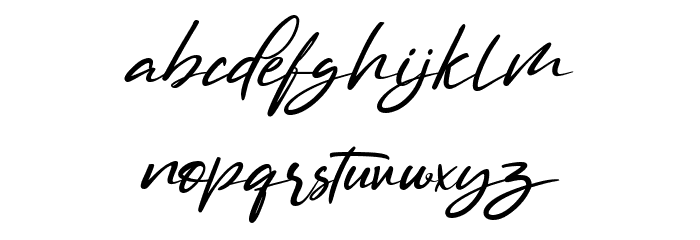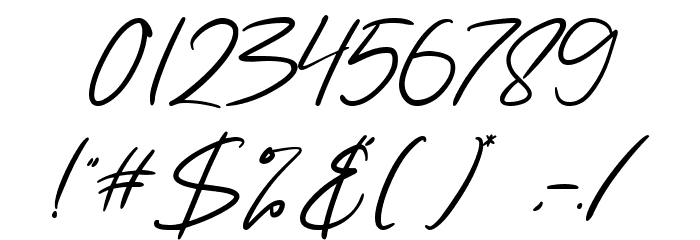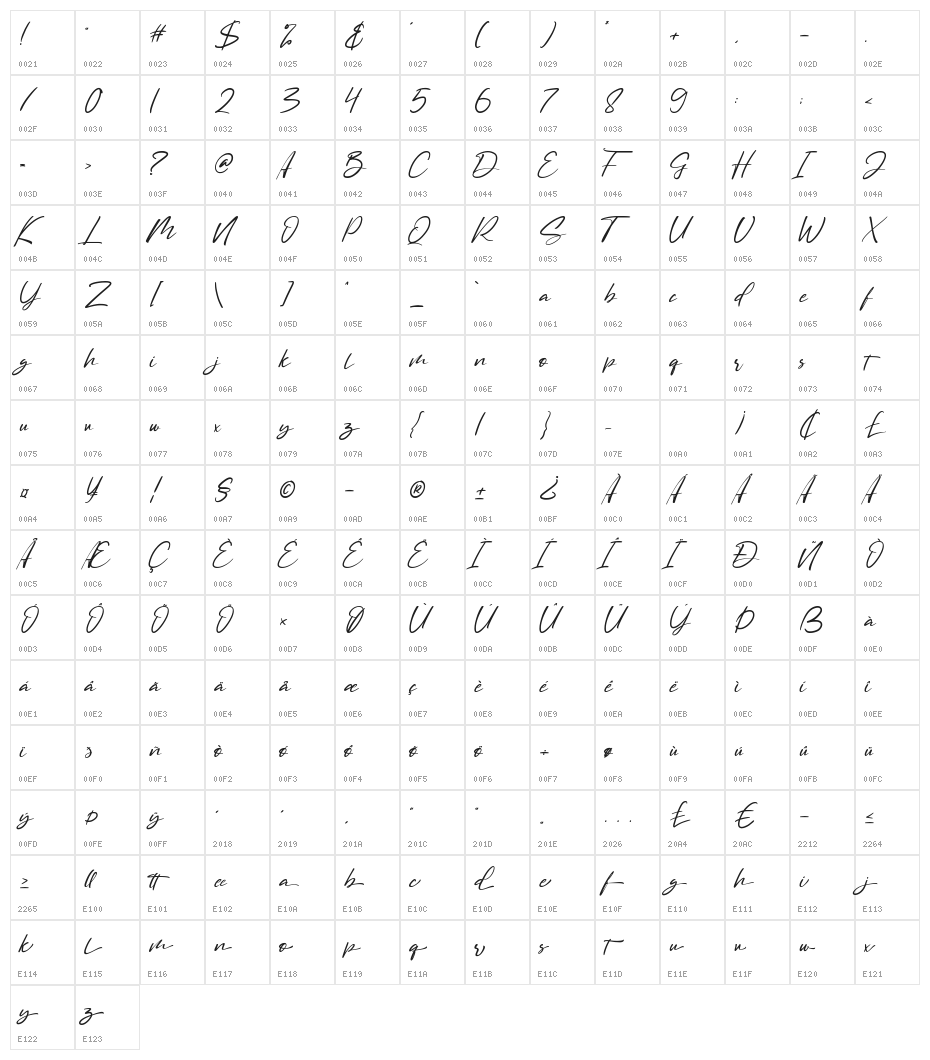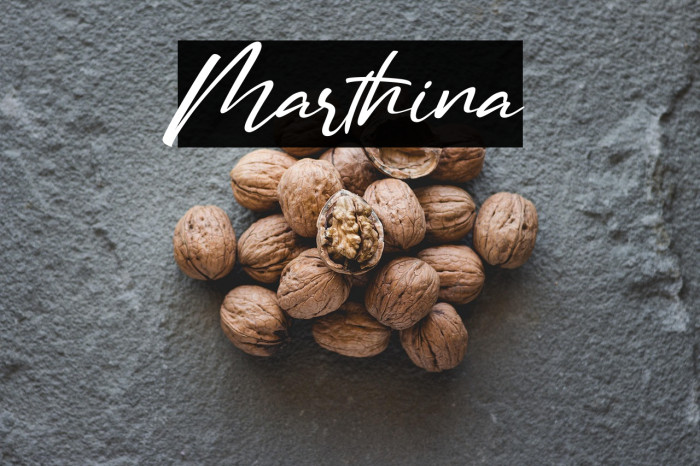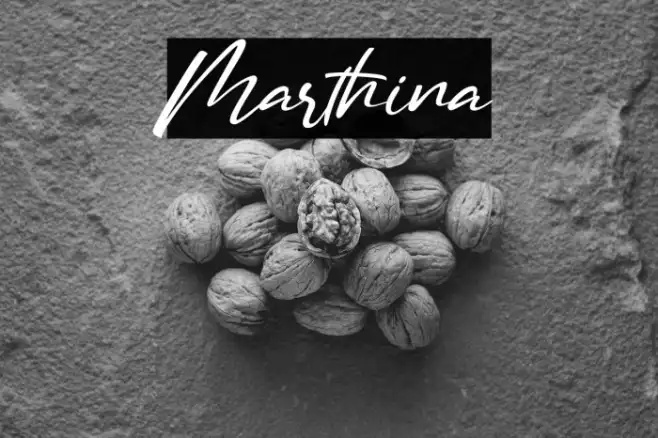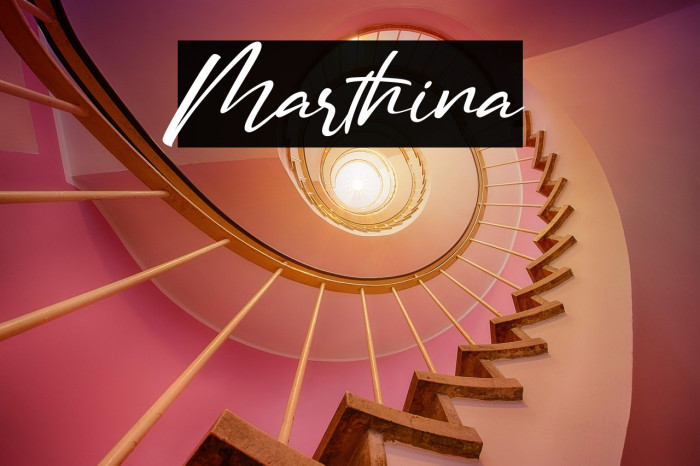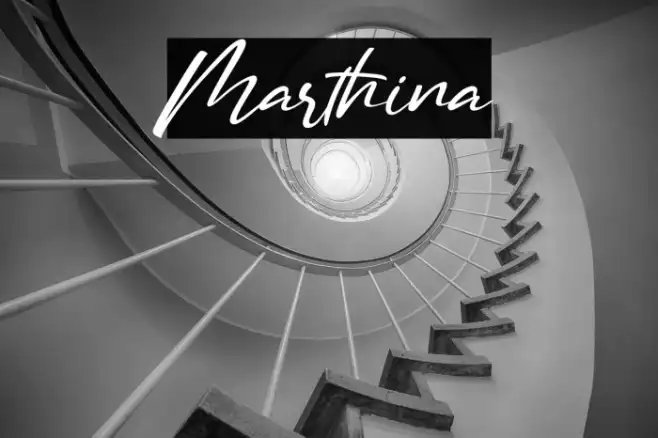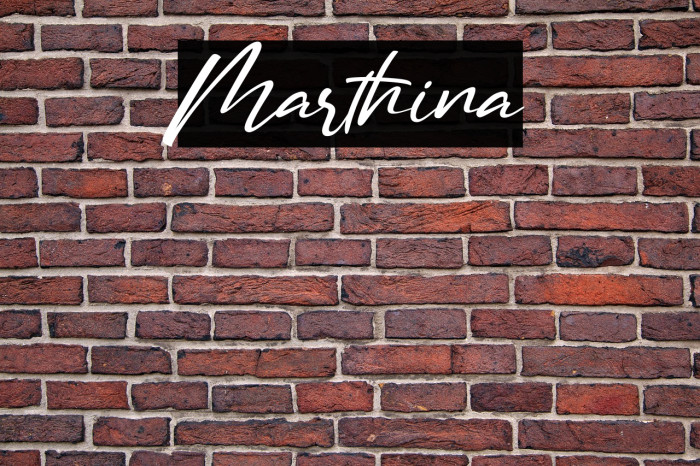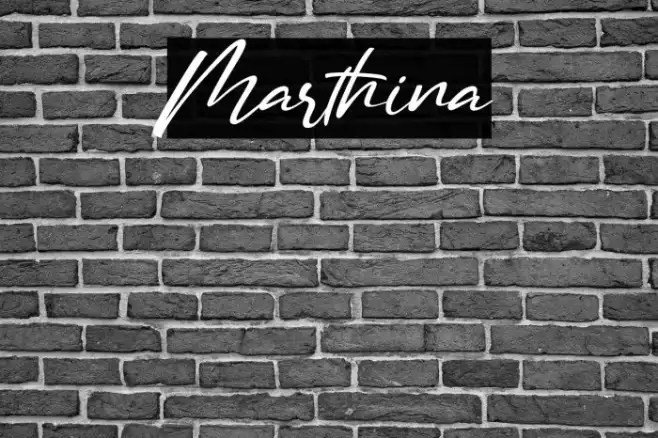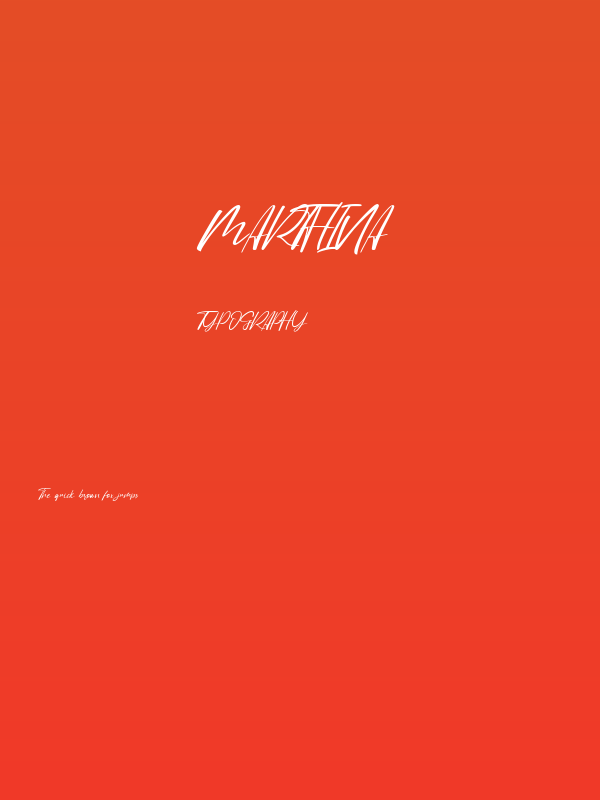
Marthina Font
This font exudes a dynamic and expressive style, characterized by its flowing, cursive script that mimics the fluidity of natural handwriting. The letters are interconnected with elegant loops and swirls, giving it a personal and artistic touch. The uppercase letters are bold and prominent, while the lowercase letters maintain a consistent rhythm, enhancing readability. The numbers and special characters are crafted with the same attention to detail, ensuring a cohesive look across all elements. This font is perfect for projects that require a touch of sophistication and creativity.
A dynamic, cursive script font with elegant loops and swirls.
- Font: Marthina
- Proposed Projects: Ideal for wedding invitations, greeting cards, branding, and artistic projects.
- Category: Script
- Use Case: Logos, Headlines, Invitations